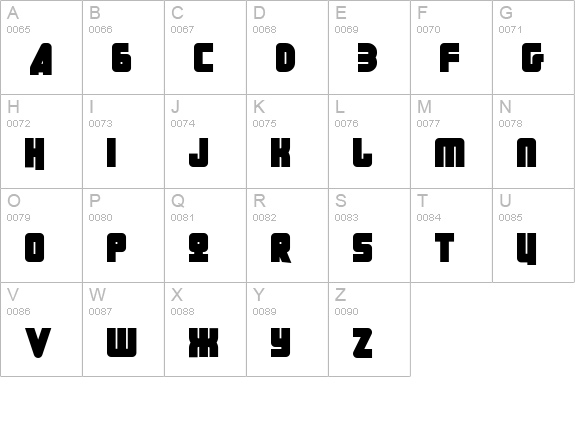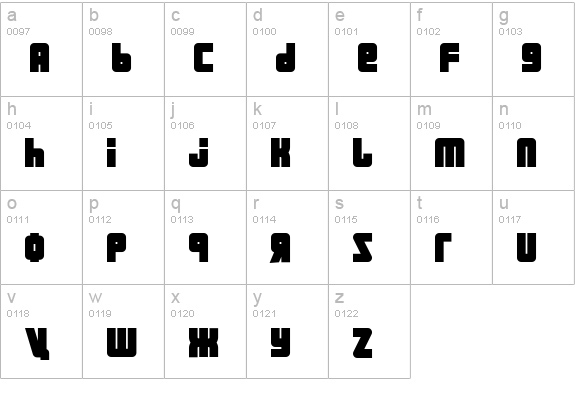
Introducing URAL, a magnificent font that effortlessly combines elegance and versatility. With its clean and modern lines, URAL is perfect for a wide range of design projects, whether it be logo design, branding, packaging, or editorial work. This font exudes a sense of sophistication and professionalism, making it an excellent choice for both digital and print media. One of the most remarkable aspects of URAL is that it is completely free! Yes, you read that right. This stunning font is freely available to download at FontsMarket.com. You no longer have to break the bank to access high-quality fonts that elevate your designs to the next level. With URAL, you can unleash your creativity without worrying about any additional costs. The versatility of URAL is truly impressive. It offers a variety of weights and styles, allowing you to experiment and find the perfect fit for any project. Whether you prefer a bold and impactful look or a more subtle and elegant approach, URAL has got you covered. The attention to detail in URAL is second to none. Each character is meticulously crafted, ensuring consistency and legibility across all platforms. Its smooth curves and balanced letterforms create a harmonious visual experience that is pleasing to the eye. Furthermore, URAL supports multiple languages, making it a fantastic choice for international projects. No matter where your audience is located, this font will adapt effortlessly to their language, providing a seamless reading experience. So, why wait? Download URAL today and unlock a world of design possibilities. Whether you are a professional designer or a passionate hobbyist, this font will elevate your work and help you stand out from the crowd. Remember, URAL is free and readily available at FontsMarket.com. Don't miss out on this incredible opportunity to enhance your designs with a font that exudes elegance and sophistication.